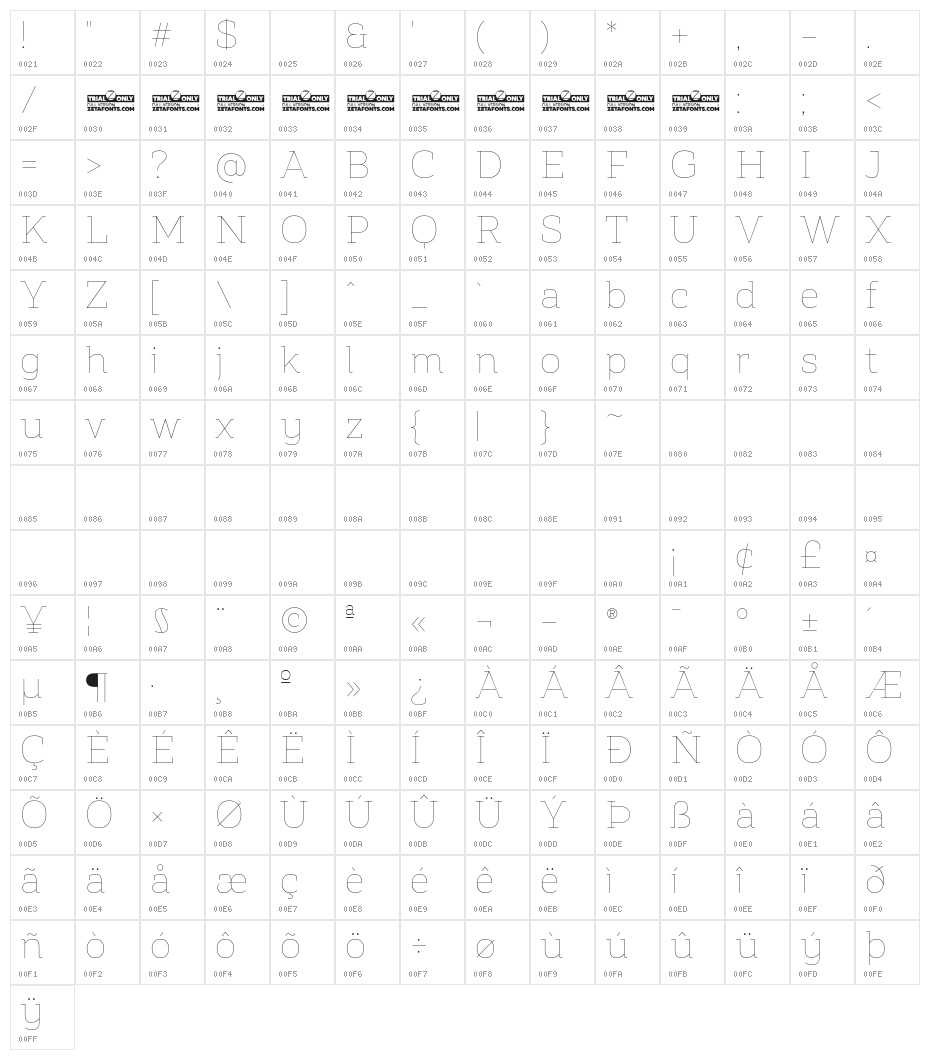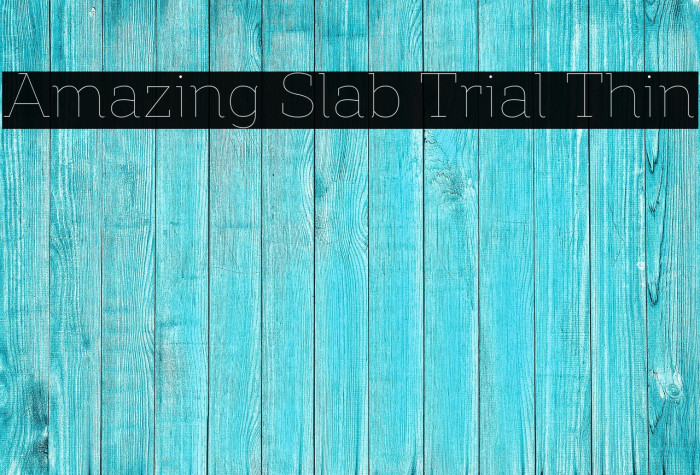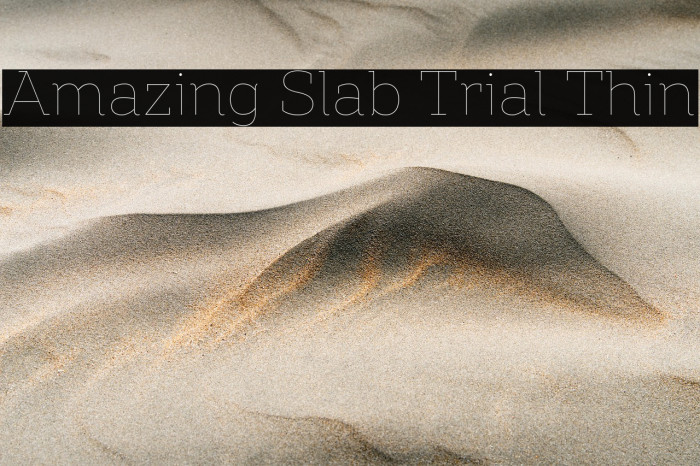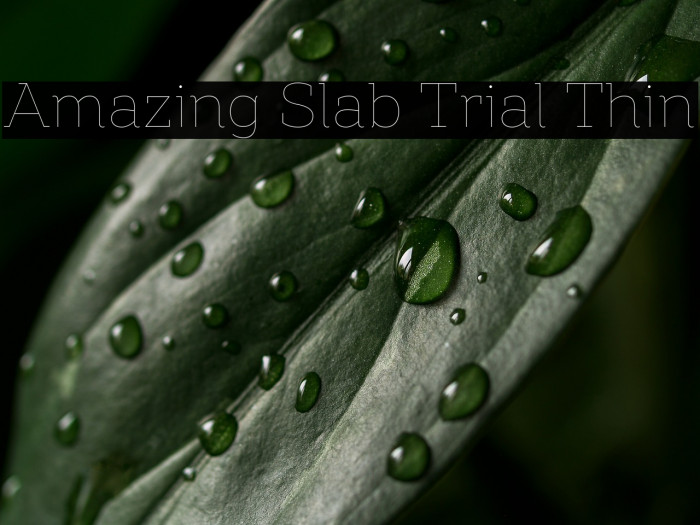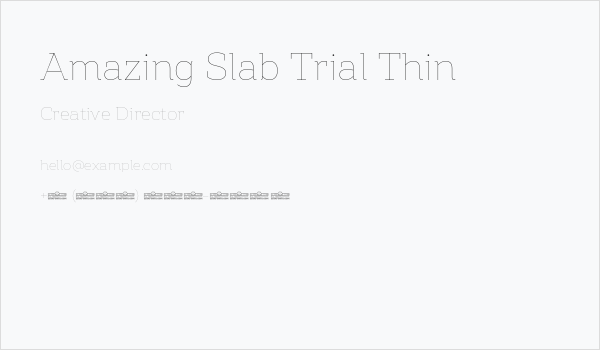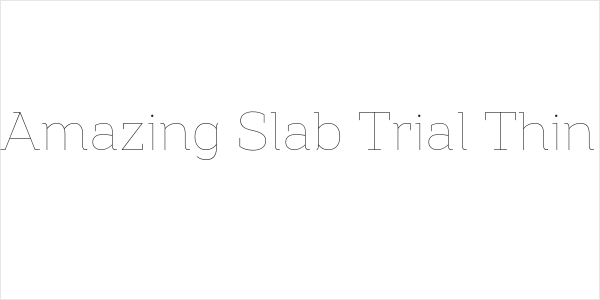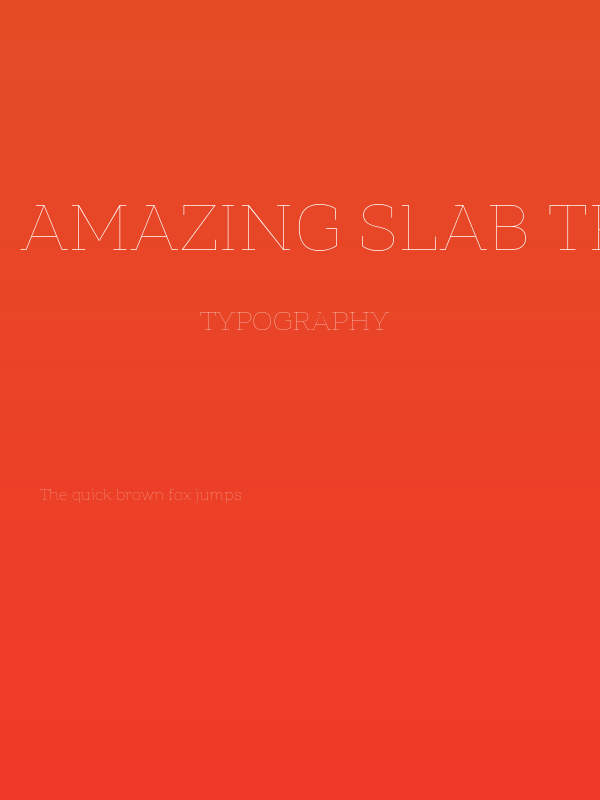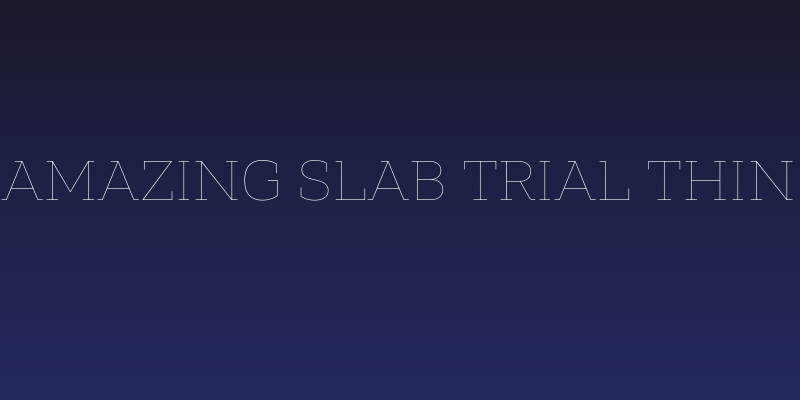
Amazing Slab Trial Thin Font
Amazing Slab Trial Thin Description
This font exhibits a clean and modern aesthetic with a thin, linear structure. The characters are crafted with precision, featuring sharp edges and a geometric form that conveys a sense of elegance and simplicity. The uppercase and lowercase letters maintain a consistent height and width, ensuring uniformity across the text. The numerals and special characters are designed to complement the alphabet, maintaining the same thin stroke weight and geometric style. This font's minimalistic design makes it versatile for various applications, offering a contemporary look that is both stylish and functional.